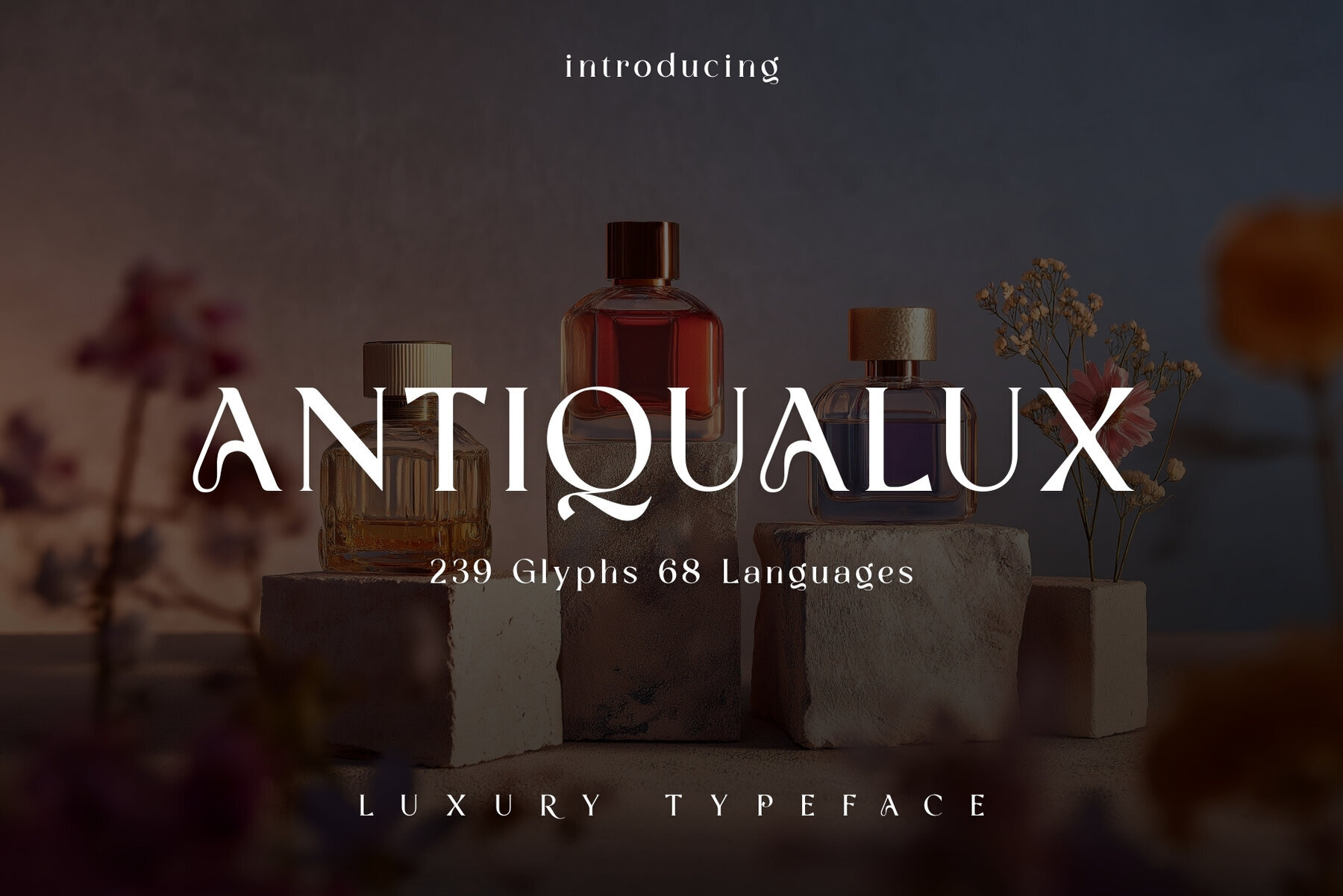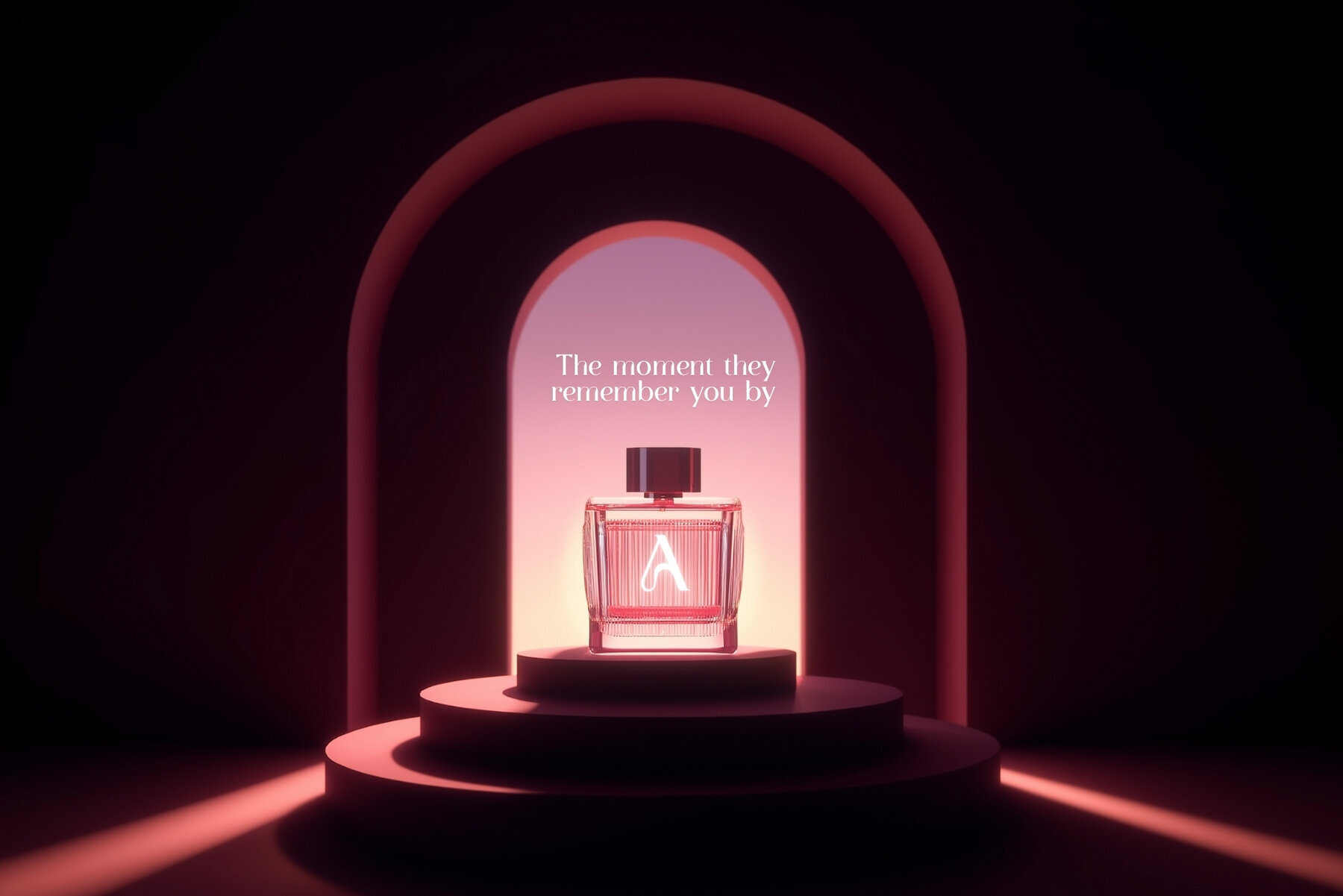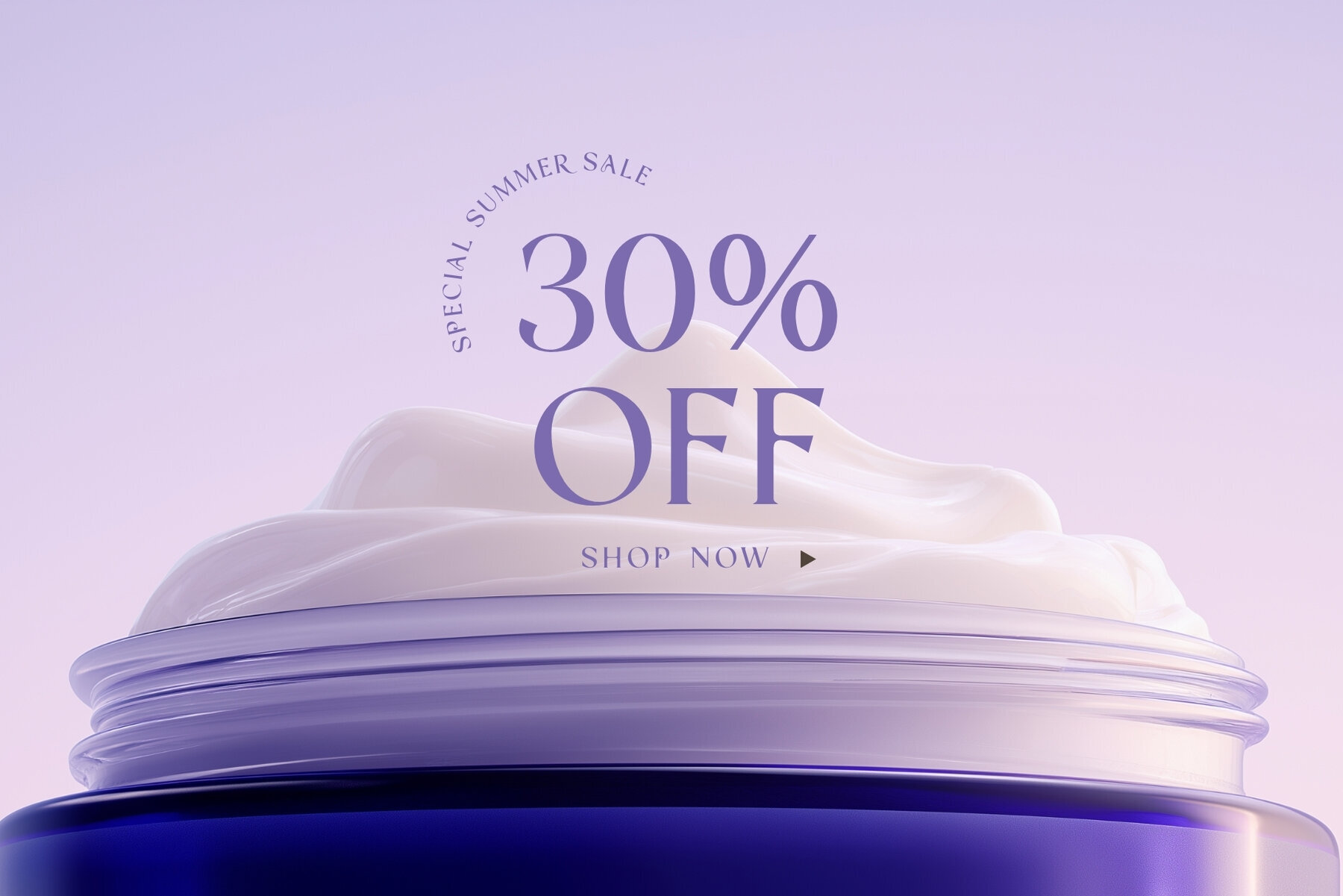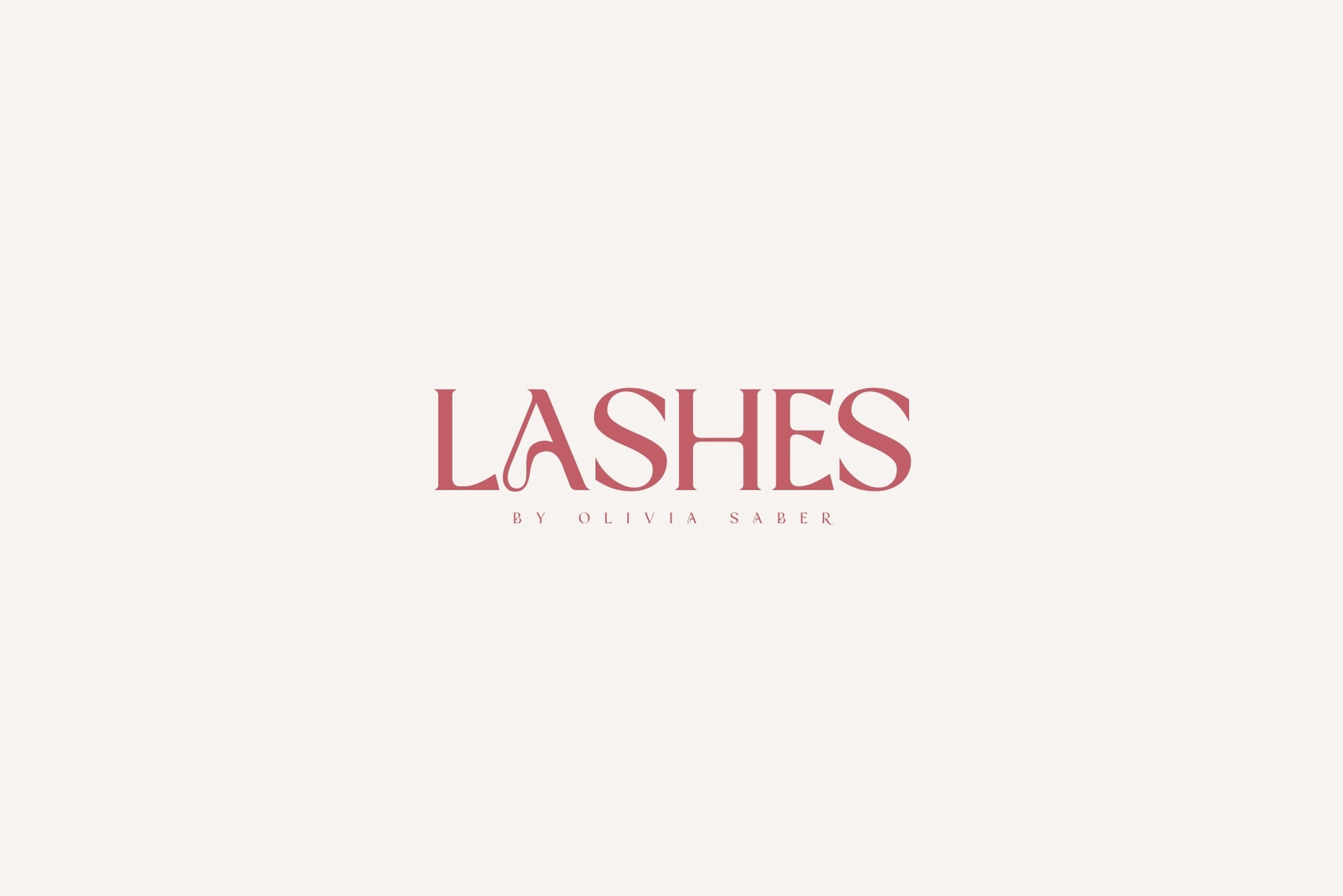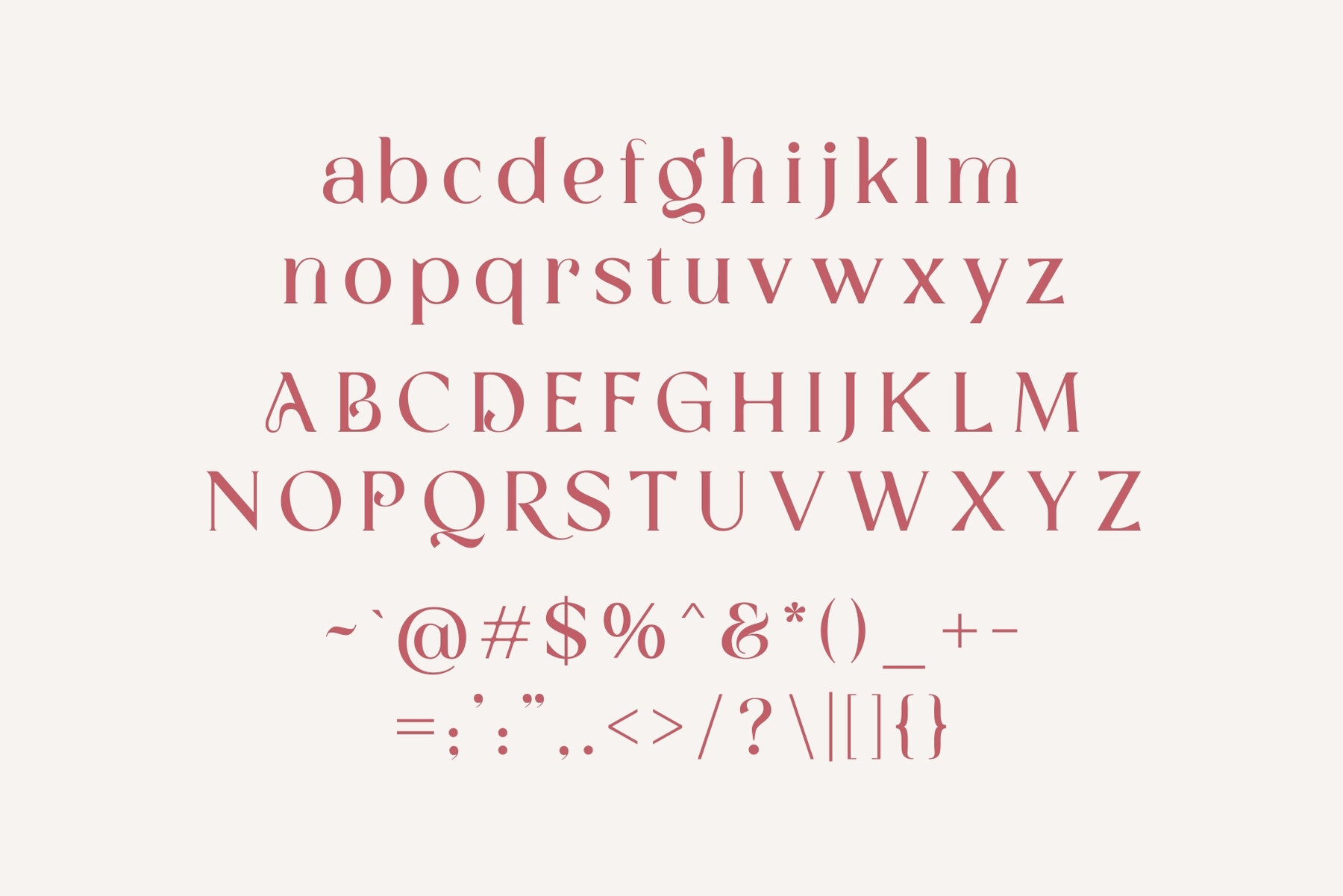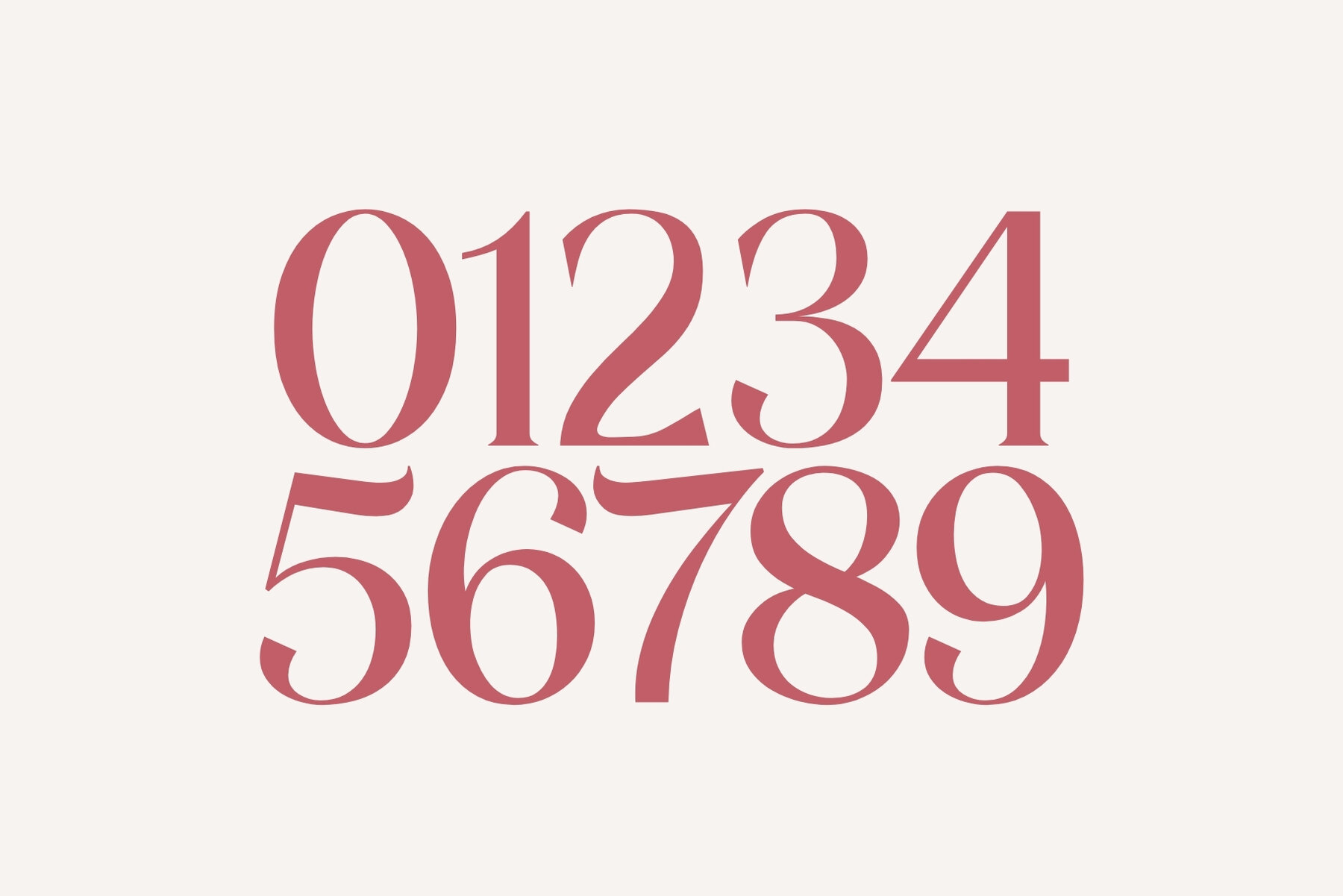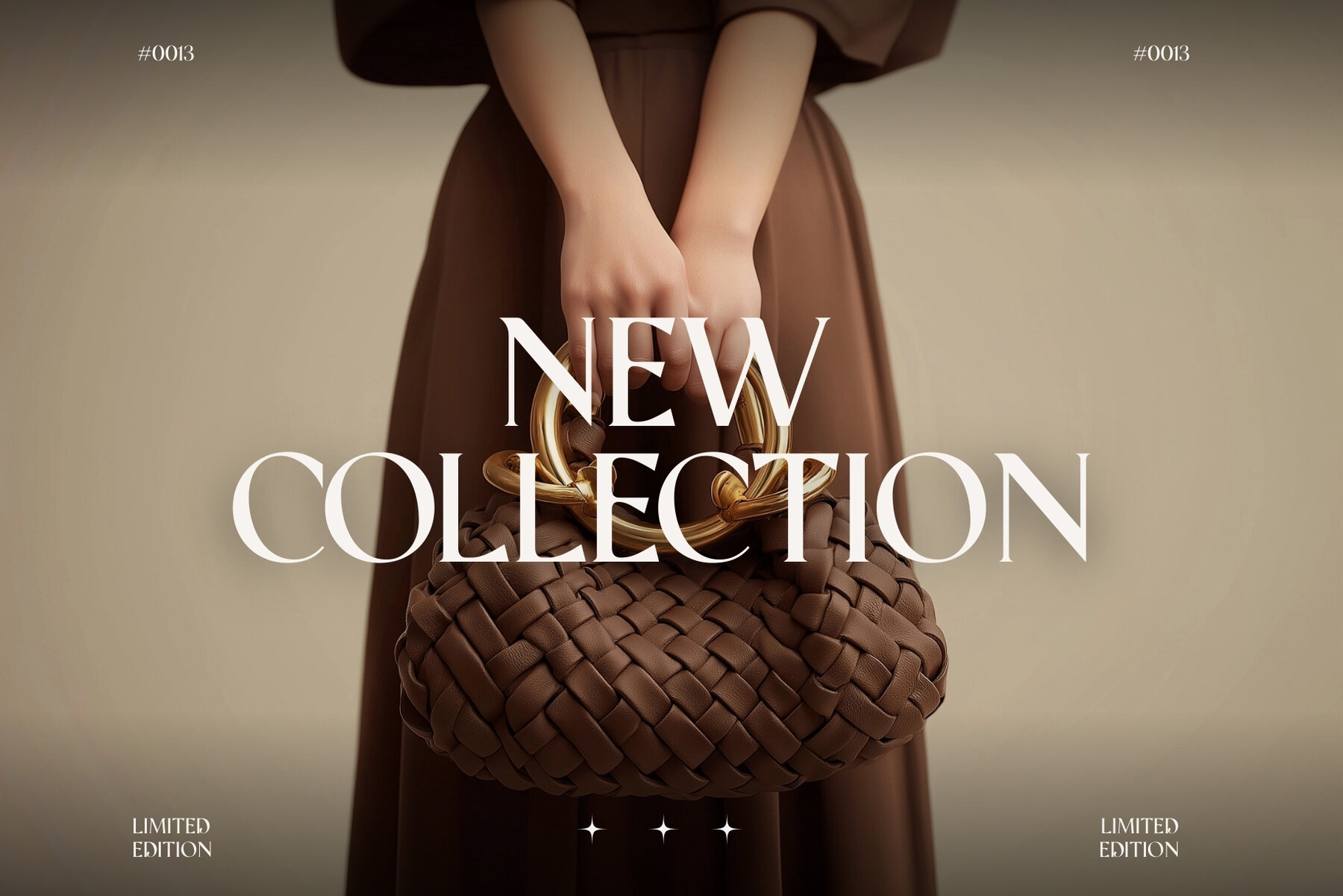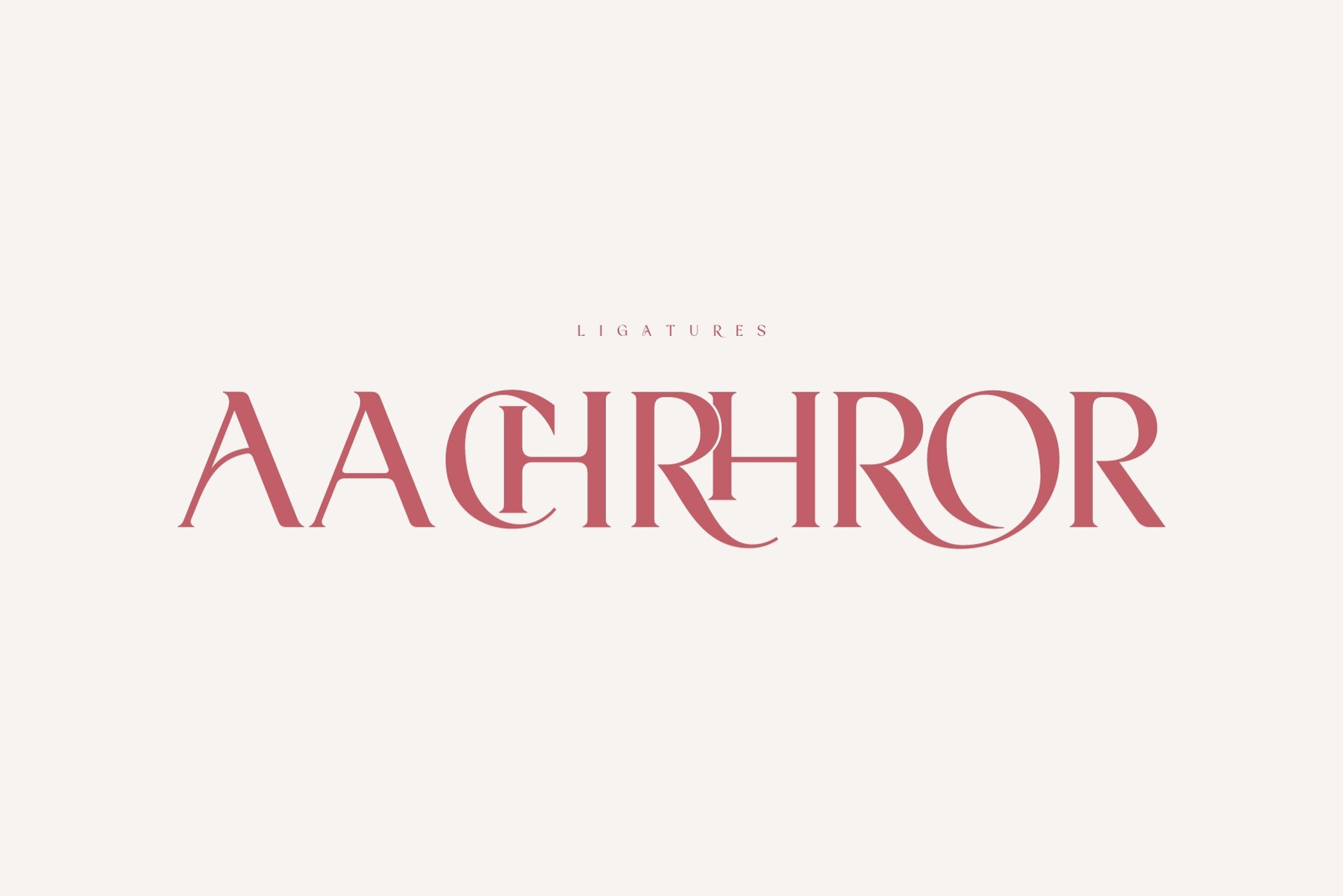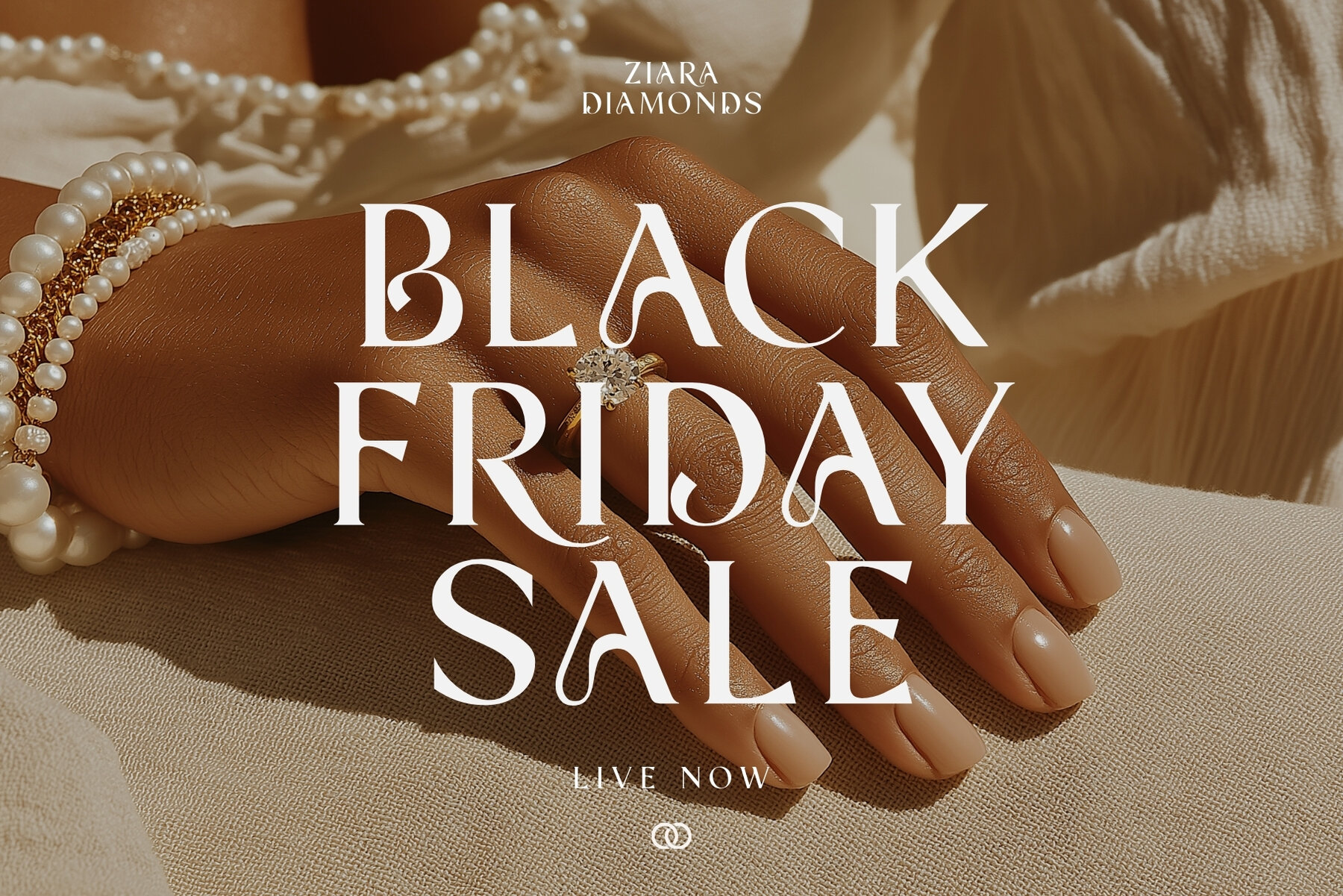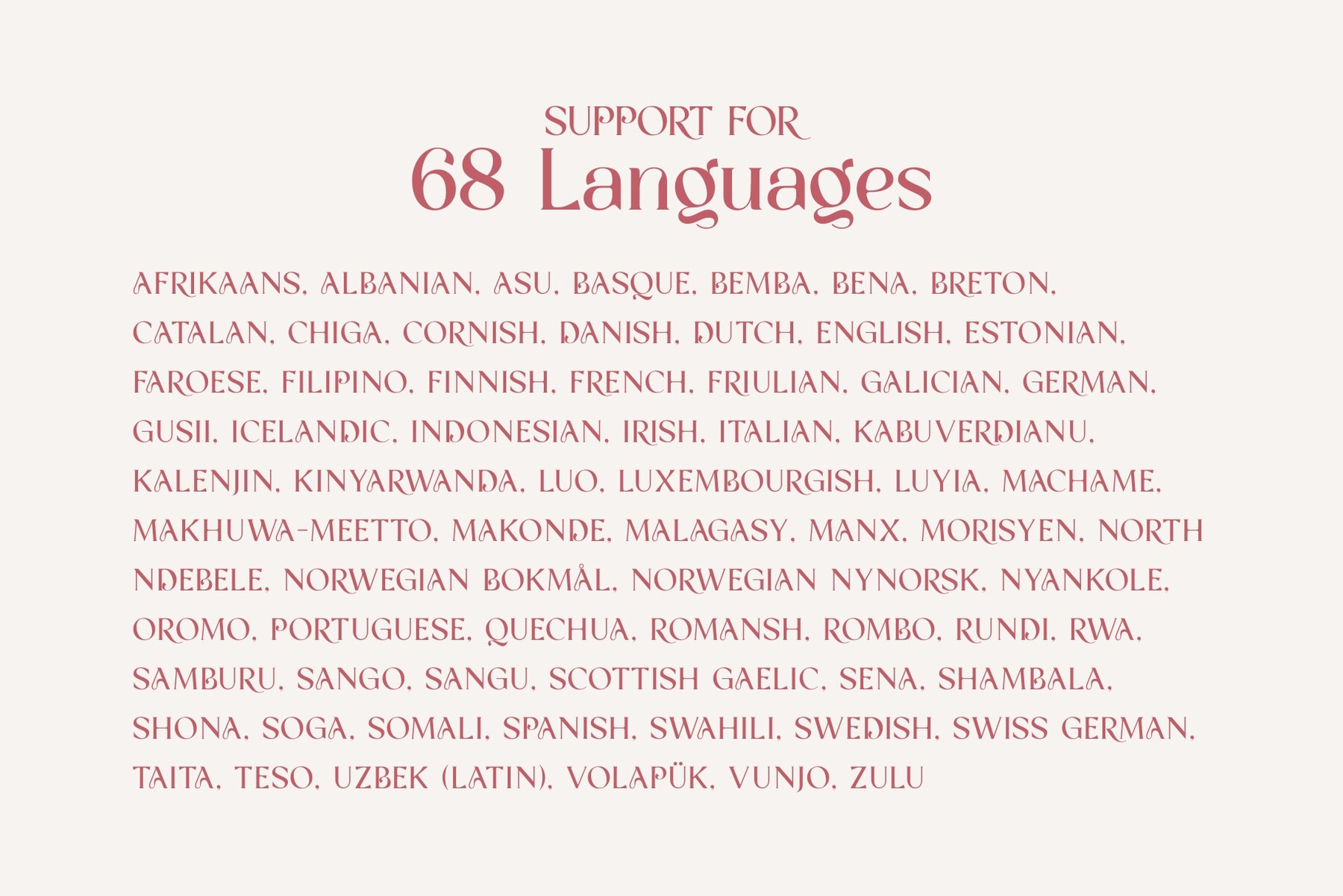
Antiqualux Font
Antiqua Lux Regular
Antiqualux brings a blend of timeless elegance and modern refinement to luxury branding. Designed for creative professionals who value detail, this typeface features 239 meticulously crafted glyphs and supports 68 languages, making it as versatile as it is sophisticated. With a distinguished character, Antiqualux gives visual projects a lasting sense of poise and authority. The subtle contrast in strokes and deliberate curvature reflect a dedication to precise typographic construction. Antiqualux is well suited for projects that call for a polished, upscale presence—cosmetics, fashion branding, boutique identities, magazine layouts, and high-end packaging benefit from its graceful yet commanding forms. Every curve and serif is carefully balanced to convey confidence and enduring appeal, ensuring your work stands out without resorting to excess.Antiqualux: Refined Type for Distinguished Branding